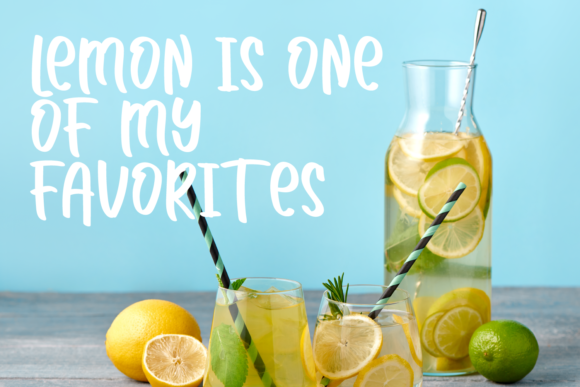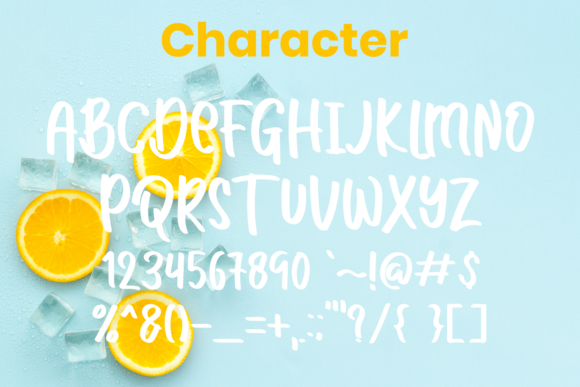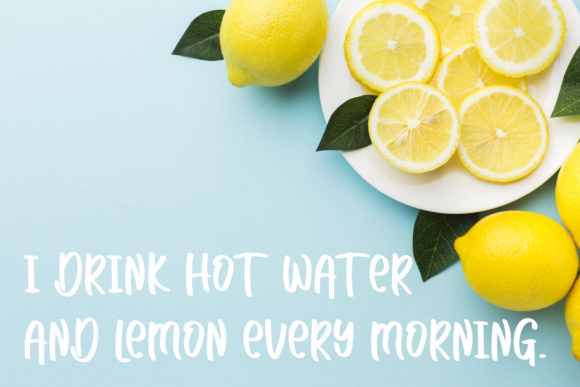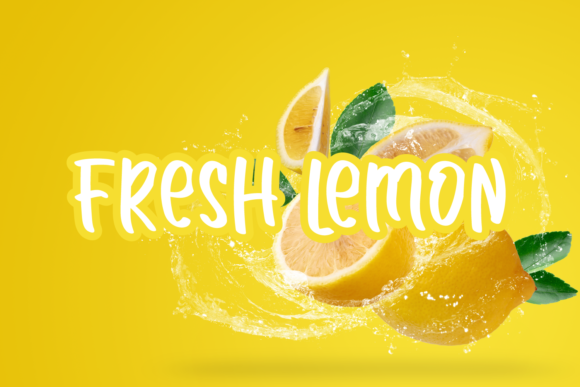
The Power of Hey Lemon Font: Elevate Your Designs with a Friendly Twist
I’ll never forget the time I was working on a project for a children’s brand, and I just couldn’t find the right font to capture the playful, yet approachable vibe I was going for. The client wanted something that would appeal to kids and parents alike, but still stand out in a crowded market. That’s when I stumbled upon Hey Lemon font, and let me tell you, it was love at first sight! 💕
Hey Lemon font is a simple, cute, and cool display font that’s perfect for adding a friendly touch to your designs. With its unique blend of modern and playful elements, it’s no wonder this font has become a favorite among designers, crafters, and creative hobbyists. In this article, we’ll dive into the world of Hey Lemon font, exploring its features, how to use it, and what makes it so special.
An Honest Review: What I Love (and a Few Quirks) 🤔
So, what makes Hey Lemon font so great? Here are a few things that I love:
- ✨ Unique and playful design: Hey Lemon font has a one-of-a-kind look that’s sure to grab attention.
- ✅ Ease of use: This font is incredibly easy to read and works well for both digital and print projects.
- 💬 Versatility: From titles and headings to short paragraphs, Hey Lemon font adapts seamlessly to different contexts.
Of course, no font is perfect, and there are a few quirks to be aware of:
- ⚠️ Limited suitability for body text: While Hey Lemon font is amazing for titles and headings, it might not be the best choice for longer blocks of text.
- 🤔 Some glyphs may require manual adjustment: Depending on your design, you might need to tweak certain glyphs to get the perfect look.
The Story Behind Hey Lemon Font: Designer Inspiration
According to its creators, Hey Lemon font was designed with the goal of crafting a friendly, approachable font that would bring joy to designs. Inspired by the simplicity and playfulness of hand-drawn fonts, Hey Lemon’s unique design has made it a favorite among designers and crafters.
Q: Is Hey Lemon font suitable for body text?
A: While Hey Lemon font is amazing for titles and headings, it might not be the best choice for longer blocks of text. Consider using a more traditional font for body text.